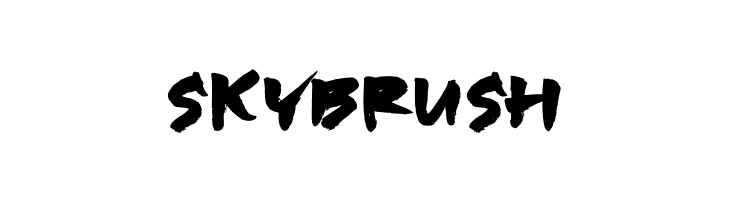
A bold, dynamic brush-style font with expressive, hand-painted strokes.
A bold, brush-style font with dynamic, hand-painted strokes.
A bold, brush-style script font with a dynamic and artistic flair.
A bold, hand-painted style font with textured strokes and dynamic energy.
A bold, brushstroke-style font with a textured, hand-painted appearance.
A dynamic brush-style font with bold, expressive strokes and a hand-painted appearance.